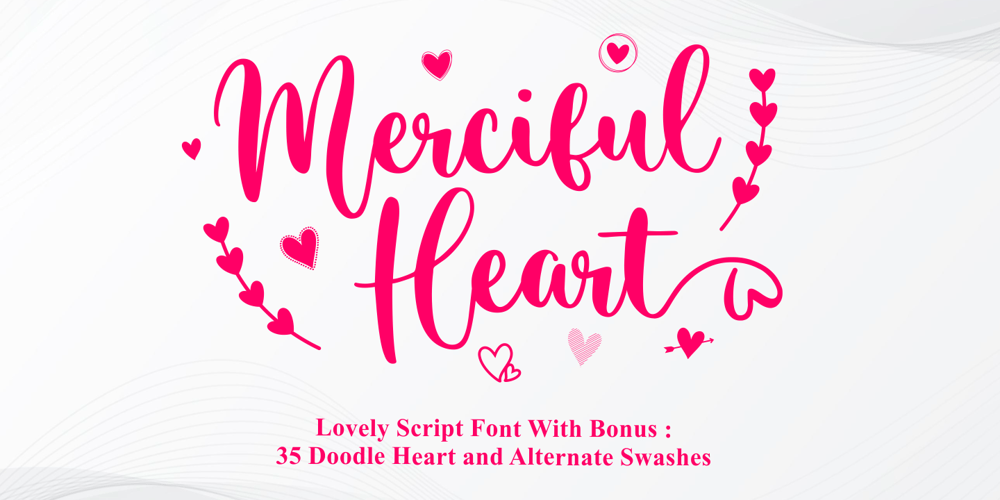
Merciful Heart
Merciful Heart font
Merciful Heart Font Family was designed by Muhamad Yusron Billah and published by Sronstudio. Merciful Heart contains 2 styles and family package options. Merciful Heart – A lovely Calligraphy Font with lovely alternate swashes and doodle heart bonus. I made this font especially for you craft designer, this font will perfect for adding a lovely touch to your design and with a pretty good thickness, this font will be great for those of you who use Cricut or Silhouette.How To Access Alternate Swashes?You can read this article: https://helpx.adobe.com/illustrator/using/special-characters.htmlFollow Instagram: @sronstudioThank You!